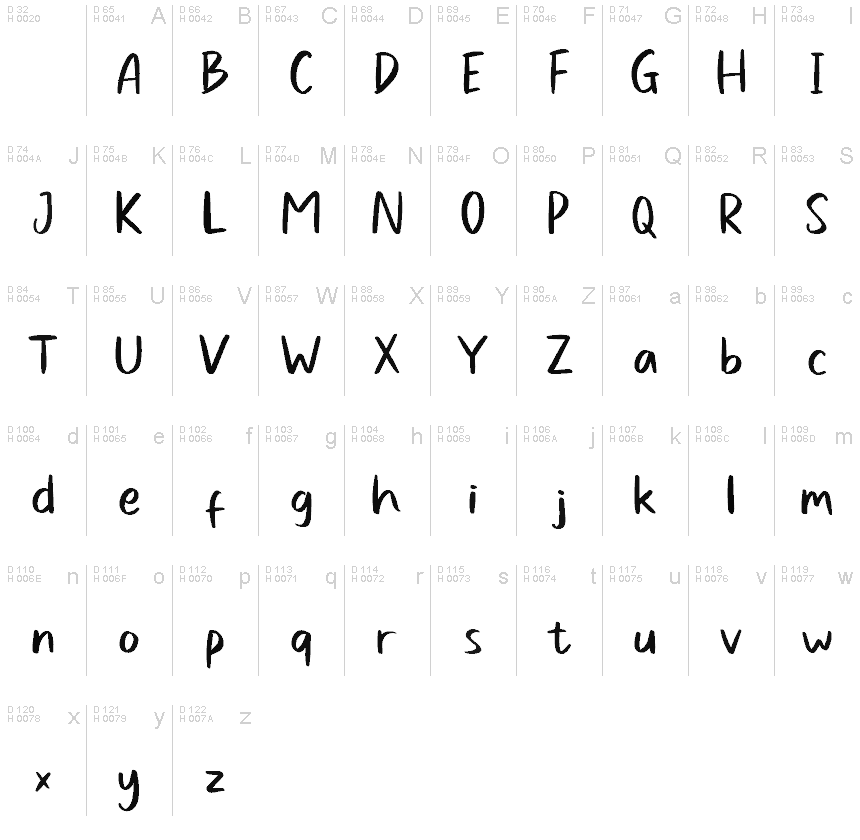
SweetButtermilkFree-Sans
Sweet Buttermilk Sans embodies a blend of casual charm and refined elegance, designed with creativity in mind by Craft Supply Co. This handwritten font from the Sweet Buttermilk family boasts an organic, flowing form that mirrors the spontaneity of authentic handwriting while maintaining a clean and legible structure. Its distinct character shines in its subtle variation in stroke weight and playful baseline, evoking a sense of warmth and friendliness.
The aesthetic appeal of Sweet Buttermilk Sans lies in its versatility; it is perfectly suited for projects that require a touch of personality without sacrificing professionalism. Whether it's for branding, product packaging, or social media graphics, this font adds an inviting human touch that can significantly enhance your design's narrative.
With its approachable style and handwritten allure, Sweet Buttermilk Sans is an excellent choice for designers looking to infuse their work with a sense of intimacy and bespoke craftsmanship.